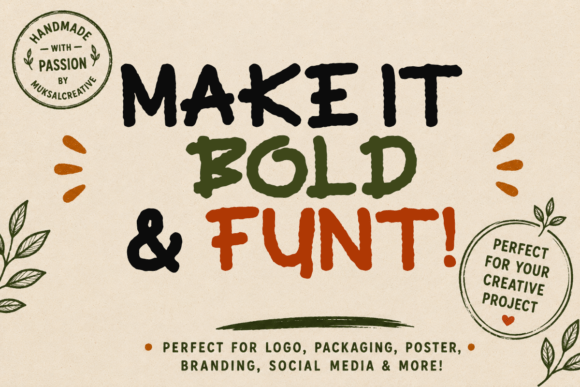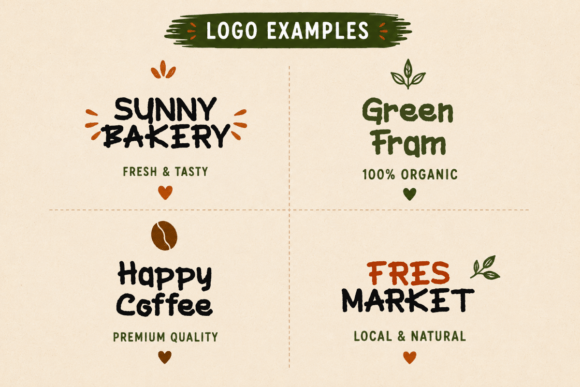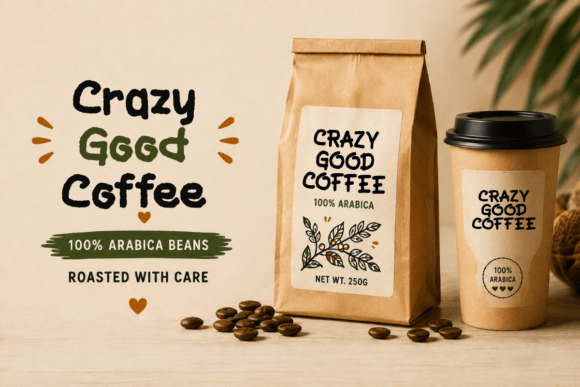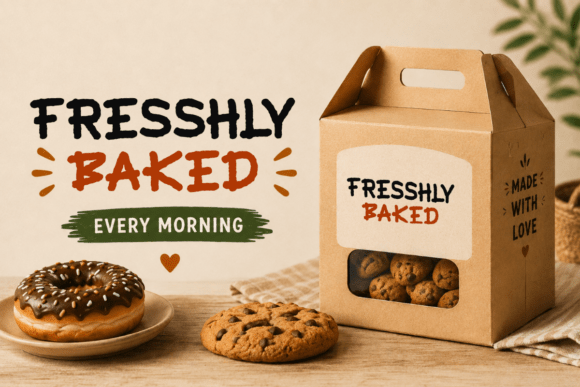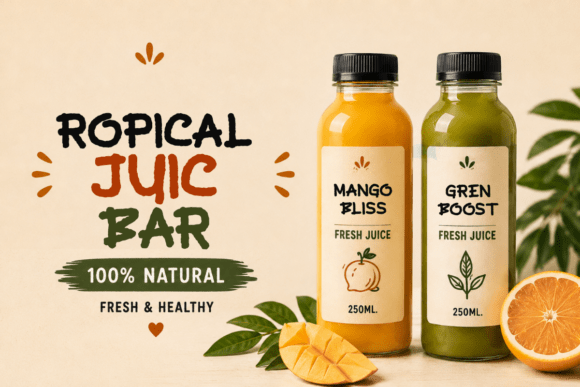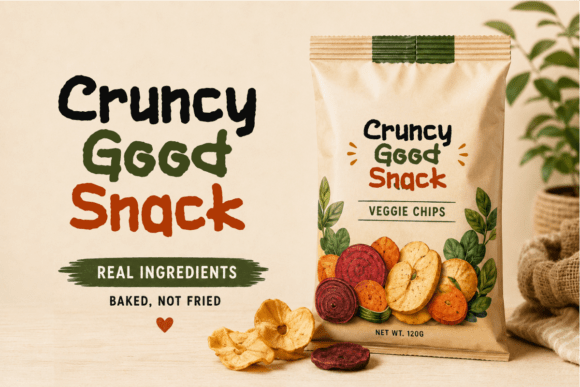
Introduction to Kolumba Font
As a designer, you’ve likely found yourself staring at a blank canvas, searching for the perfect font to bring your creative project to life. Maybe you’ve spent hours browsing through font libraries, only to end up with a generic, mass-produced option that lacks personality. That’s where the Kolumba Font comes in – a bold, handmade display font that adds a touch of warmth and character to any design.
Imagine a design resource that not only captures the essence of artisanal packaging and organic branding but also boasts a high-quality, transparent background that lets your design shine. The Kolumba Font is more than just a font – it’s a design tool that helps you create eye-catching headlines, logos, labels, and posters that truly stand out.
With its playful proportions, rough textures, and imperfect details, the Kolumba Font is the perfect addition to any designer’s toolkit. Whether you’re working on a project for a coffee shop, bakery, or farmers market, this font is sure to bring a friendly and approachable touch to your design. And the best part? It’s available for free download, making it an accessible and valuable resource for designers of all levels.
Key Features of Kolumba Font
- High-quality design resource for creative projects, ideal for use in graphic design, digital art, and print materials.
- Features a unique, modern design with a transparent background, making it easy to layer and combine with other design elements.
- Supports a wide range of languages, including Latin, Cyrillic, and Greek, making it a versatile choice for international projects.
- Perfect for use in logos, branding, and typography-focused projects, where a clean and modern font is essential.
Honest Review: Kolumba Font
As a designer, I’m always on the lookout for high-quality design resources that can elevate my creative projects. The Kolumba Font is one such resource that I recently came across. In this review, I’ll share my honest thoughts on what works well and what could be improved.
- Unique and elegant design: The Kolumba Font boasts a distinctive and sophisticated design that can add a touch of sophistication to any project.
- High-quality typography: The font’s high-quality typography ensures that it looks great in both digital and print formats.
- Limited language support: The Kolumba Font may not support as many languages as some other fonts, which could be a limitation for designers working on multilingual projects.
- No transparent background option: While the font itself looks great, it doesn’t have a transparent background option, which can limit its use in certain design scenarios.
Overall, the Kolumba Font is a solid addition to any designer’s toolkit. While it may have some limitations, its unique design and high-quality typography make it a valuable resource for creative projects. With a little creativity, designers can work around its limitations and make the most of this free download.